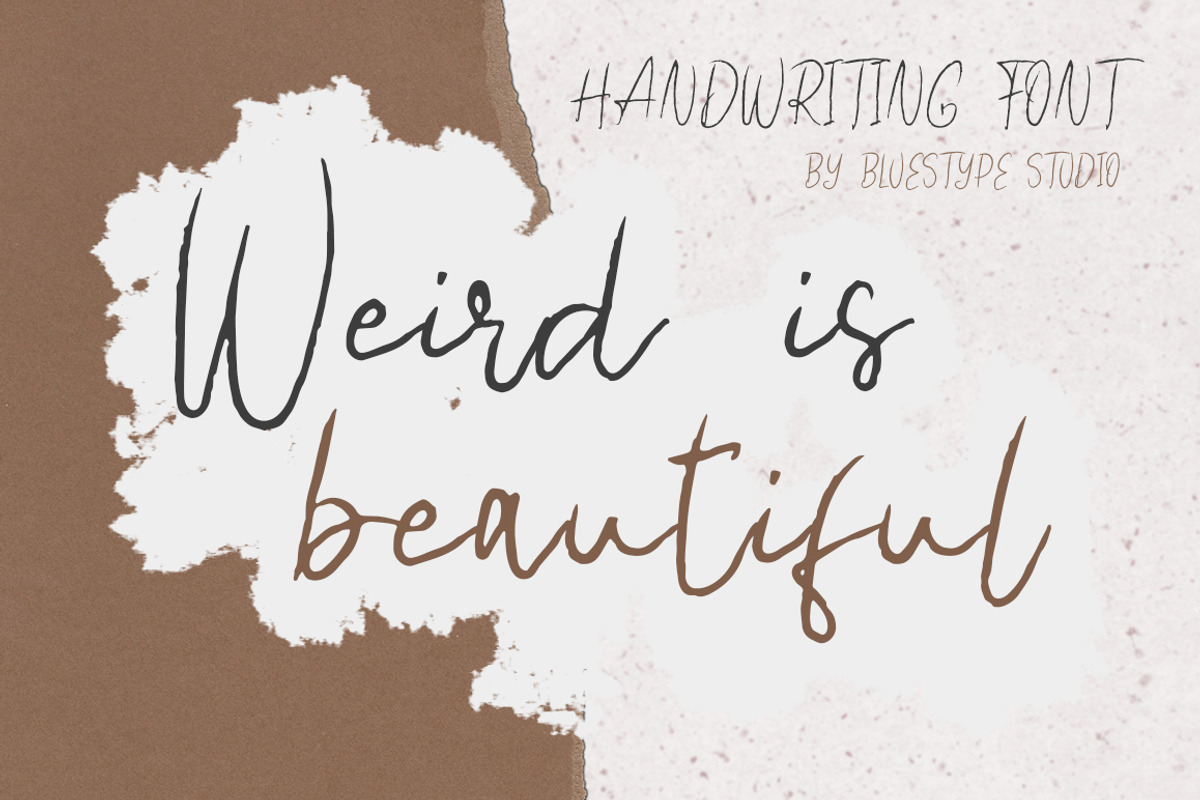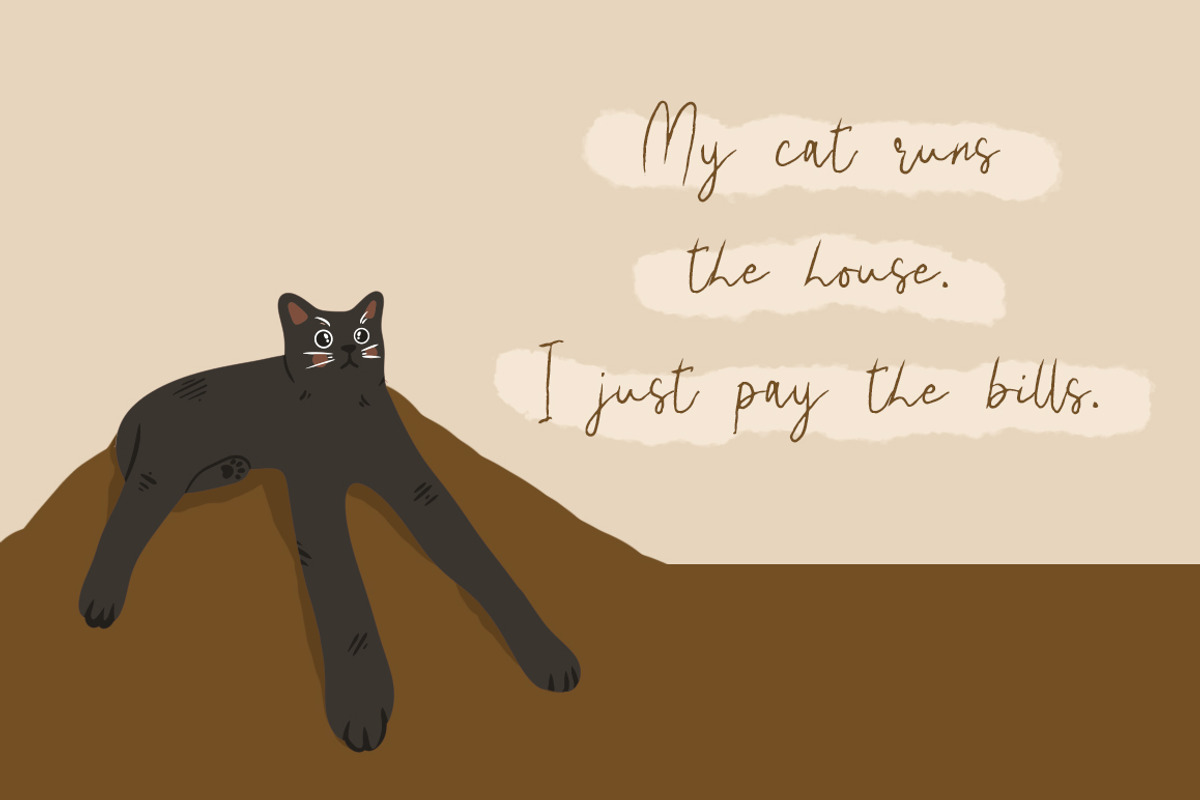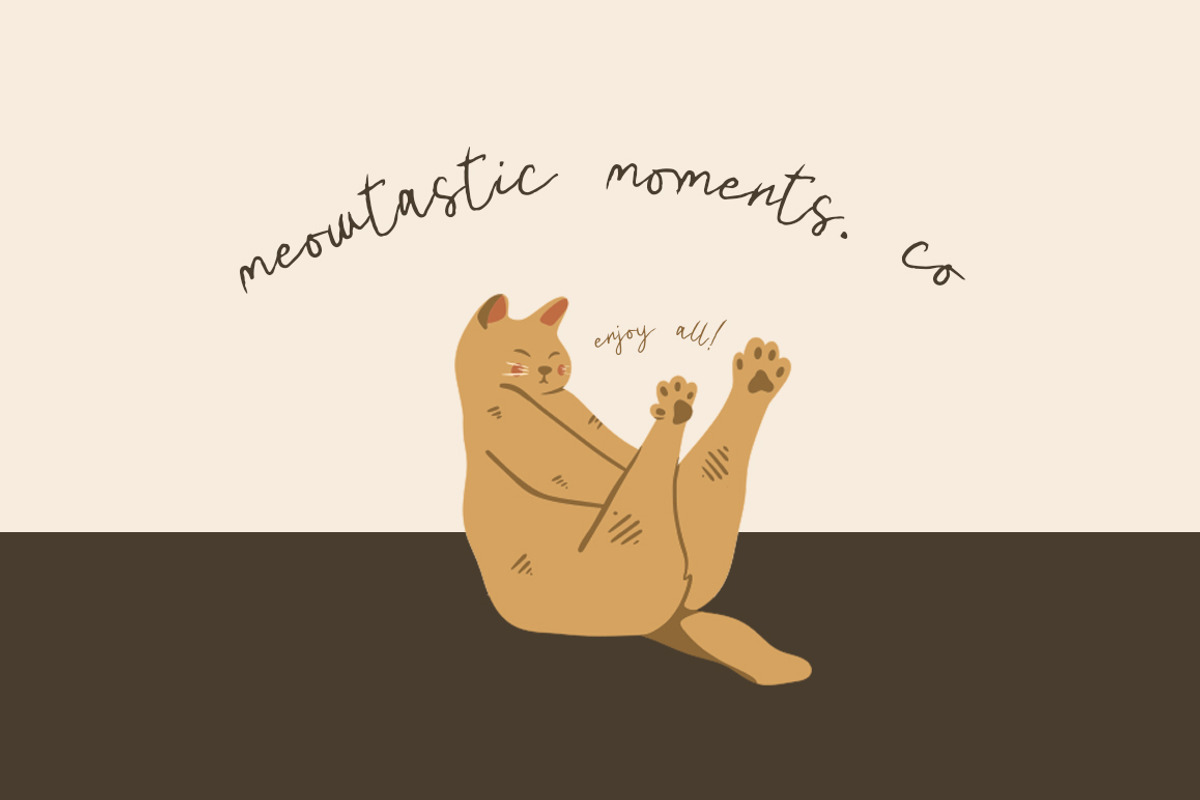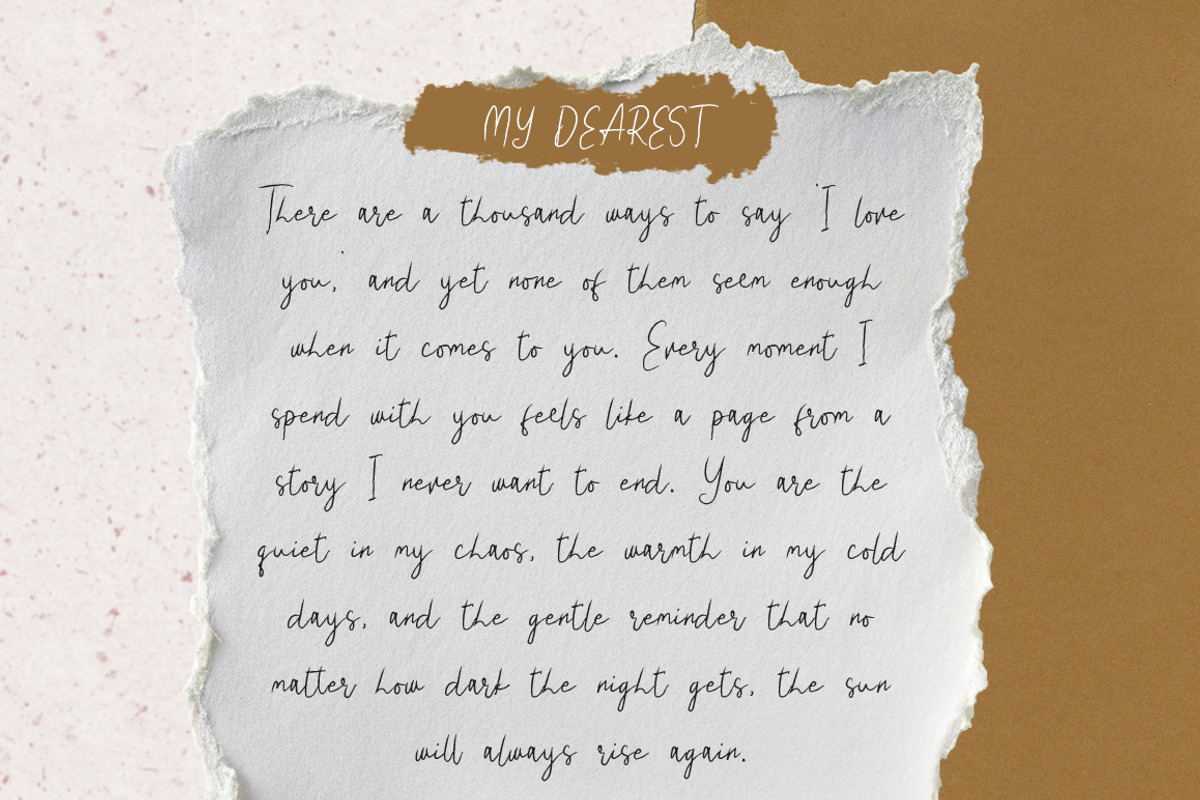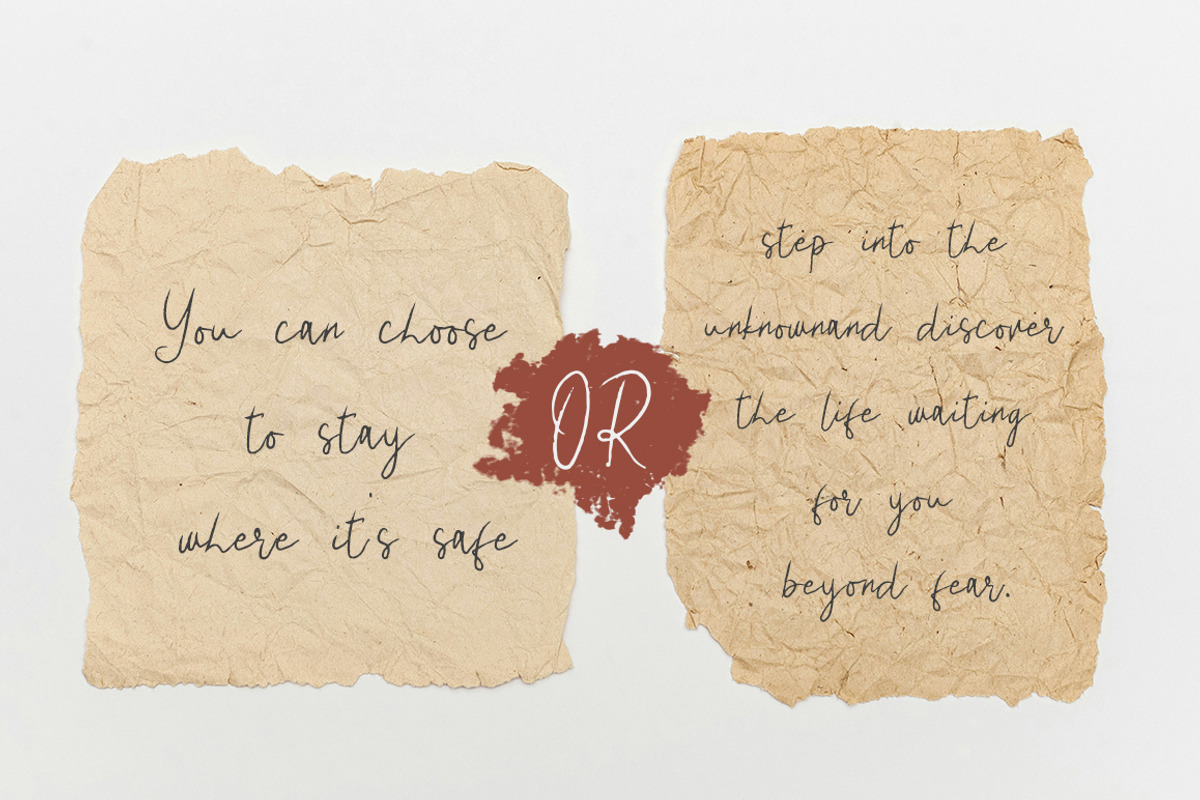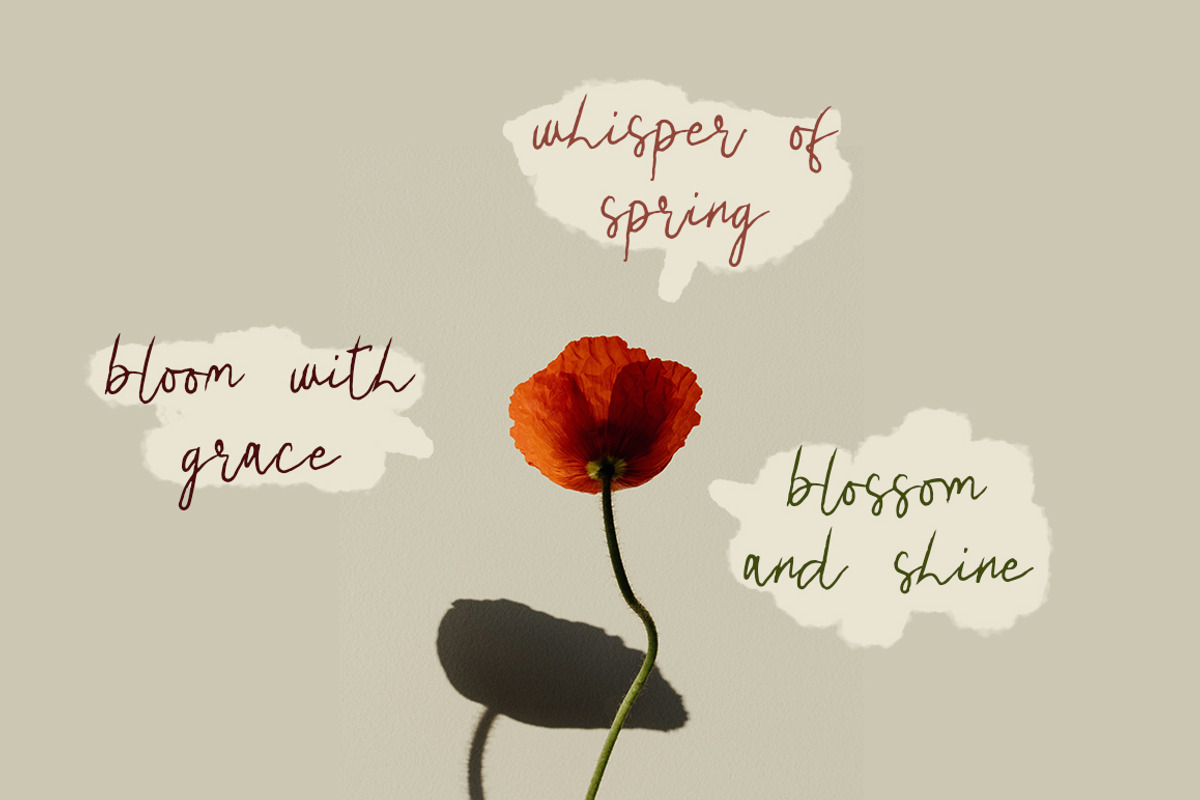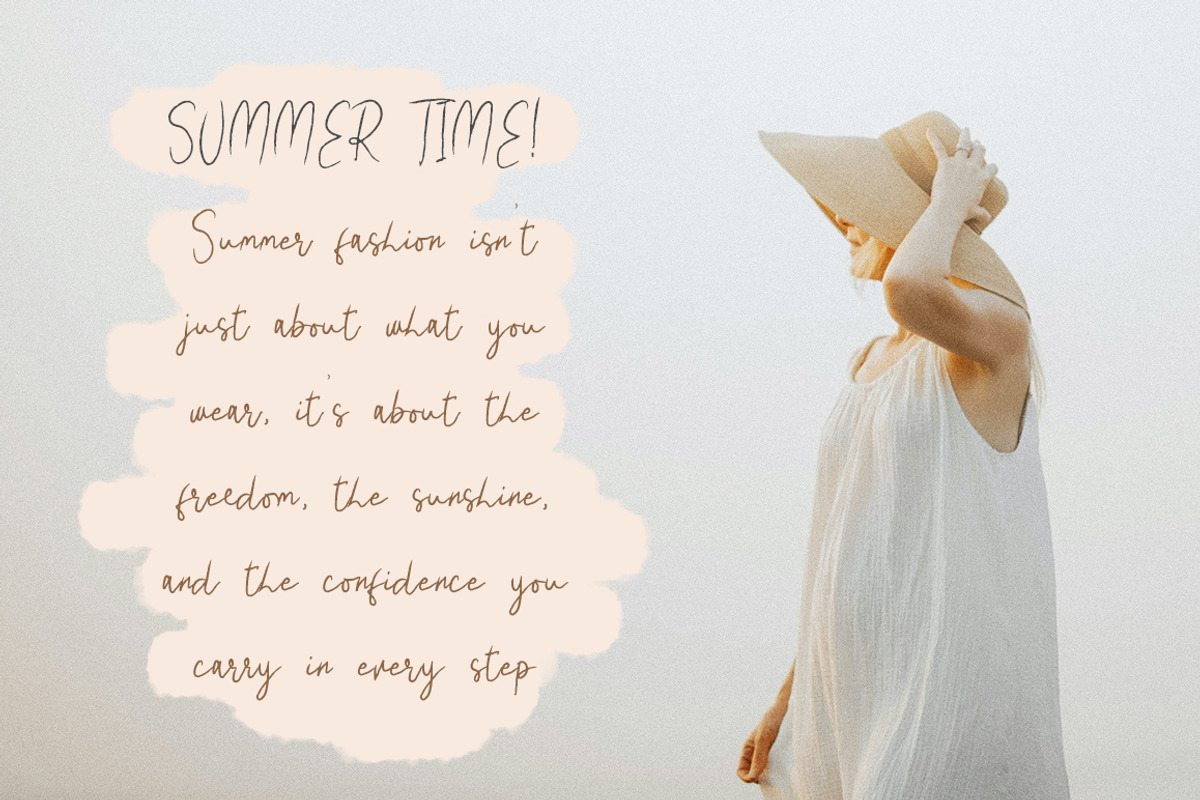
Weird is beautiful Font
Weird is beautiful - A font that combines uniqueness and natural beauty, created with beautiful pencil strokes and is suitable for those of you who want a unique design.
This font is perfect for your commercial needs such as social media posts, product branding designs, logotypes for your products, quotes, posters, and many more.